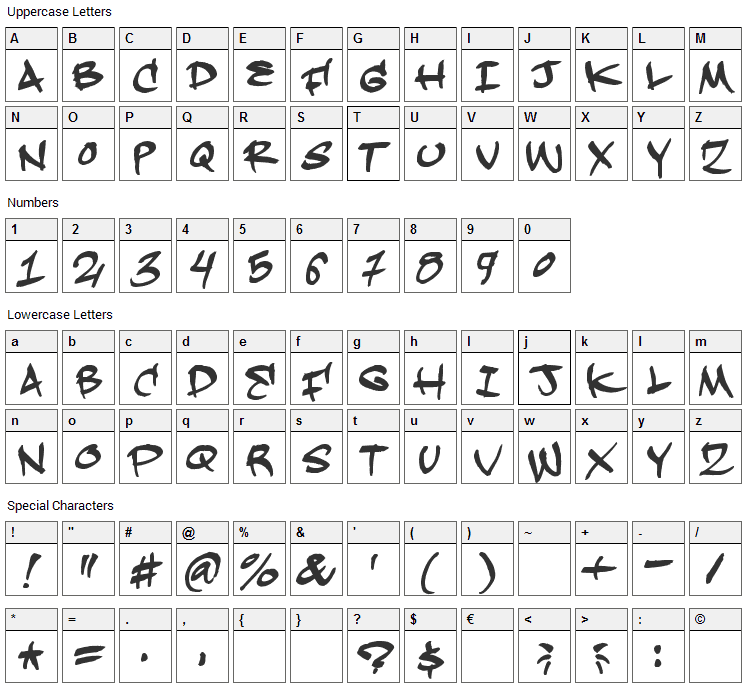
Hardkaze Font
Font Name:Hardkaze
Category:Script > Graffiti
Hardkaze is bruised, battered and scarred but hard (now where did I take those words from?)